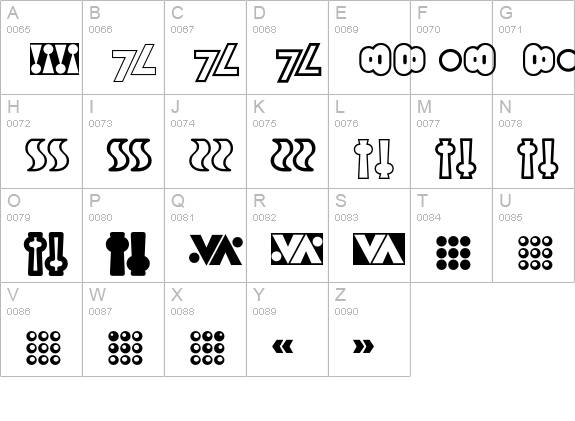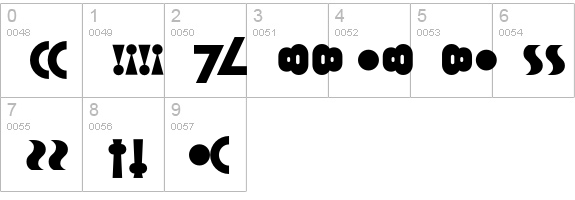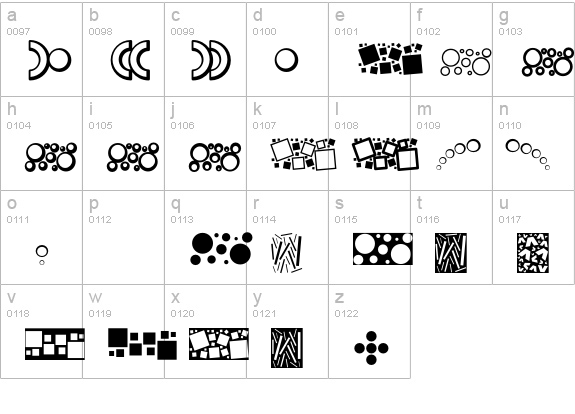
Introducing TFRouxBorders, a captivating and versatile font that effortlessly combines elegance with a touch of playfulness. This font is a masterpiece of creativity, designed to add a unique charm to any project you embark upon. With its delicate lines and perfectly balanced proportions, TFRouxBorders will leave a lasting impression on anyone who lays eyes on it. What sets TFRouxBorders apart is its incredible versatility. Whether you're designing a logo, crafting a stunning invitation, or creating captivating social media graphics, this font will effortlessly adapt to your needs. Its clean and refined appearance makes it suitable for both formal and casual settings, allowing you to infuse your projects with a touch of sophistication and style. But what truly makes TFRouxBorders special is that it is available for free! Yes, you read that right. This exceptional font can be freely downloaded from FontsMarket.com, providing you with an incredible opportunity to elevate your designs without breaking the bank. Now, creating visually stunning and captivating artwork is just a few clicks away. Don't miss out on the chance to add a touch of elegance and creativity to your projects with TFRouxBorders. Download it today and let your imagination run wild. Whether you're a professional designer or an aspiring artist, this font is sure to become an invaluable asset in your creative arsenal. Start crafting exceptional visuals that leave a lasting impression, all thanks to TFRouxBorders - the freely available font that will take your designs to new heights.